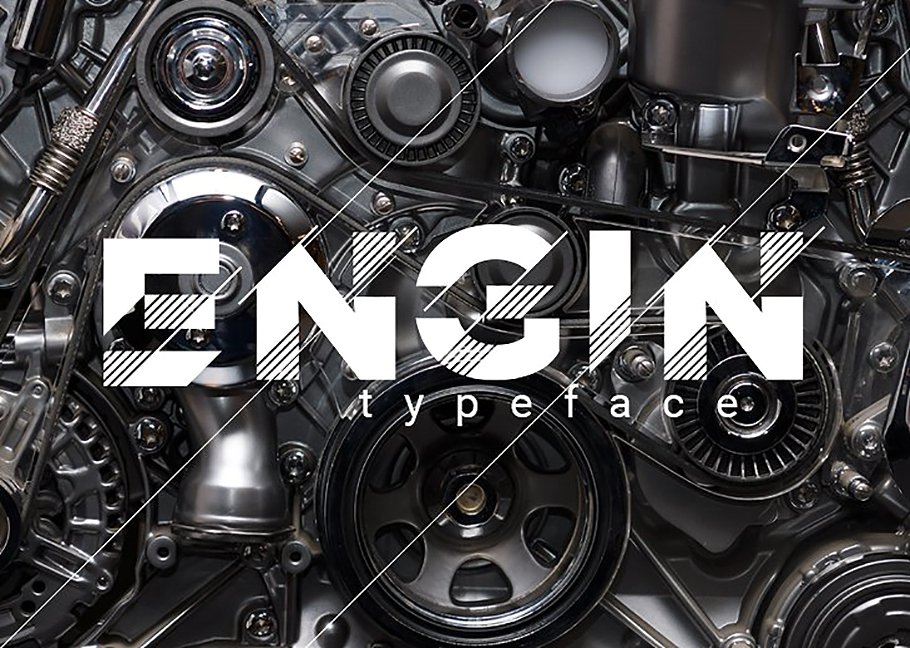
Engin Typeface
Introducing new typeface called Engin which is perfect for Logo, Logo type, quotes, apparel design, invitations, flyer, poster, greeting cards, product packaging, headers, printed quotes, cover album, etc.
| Classification: | Display Fonts, Sans Serif Fonts, Stencil Fonts, Style / Aesthetic Fonts |